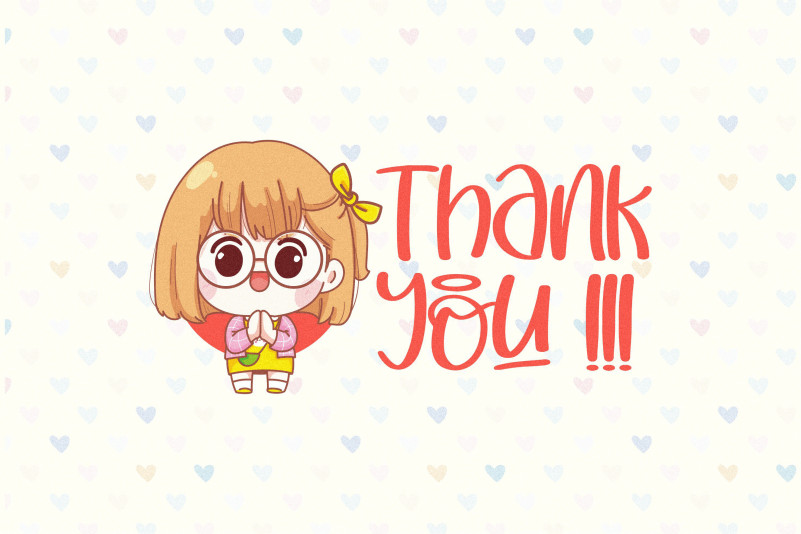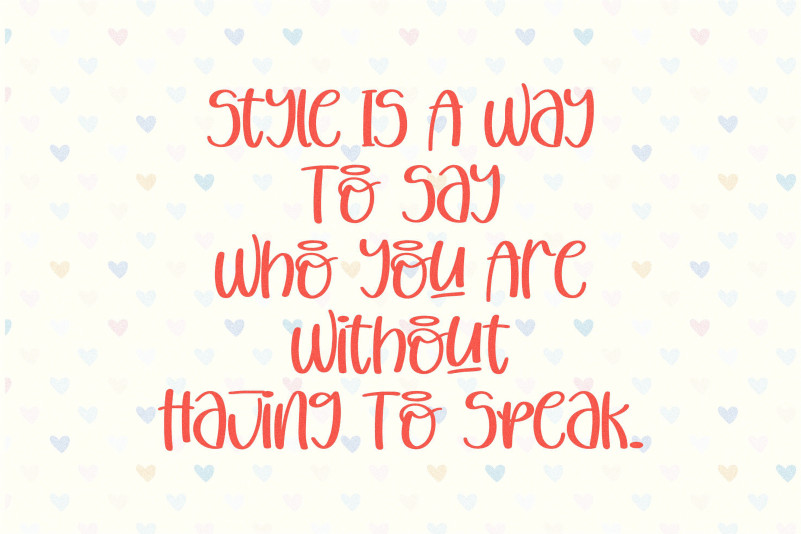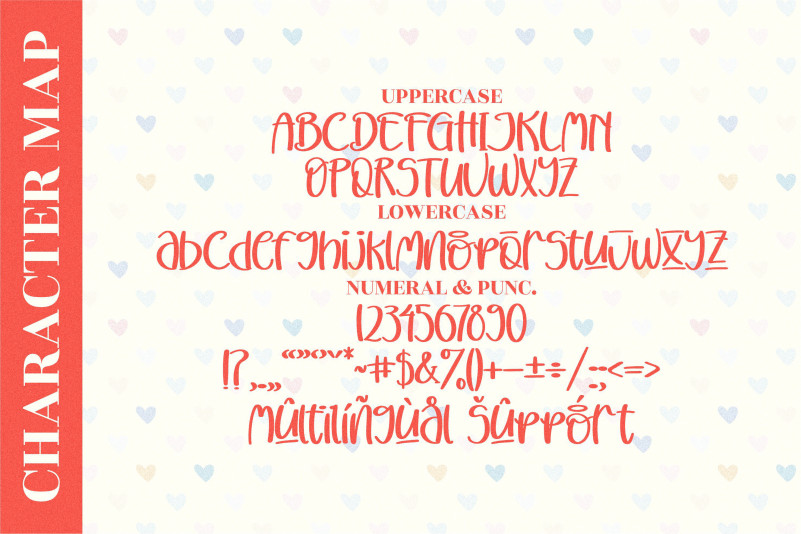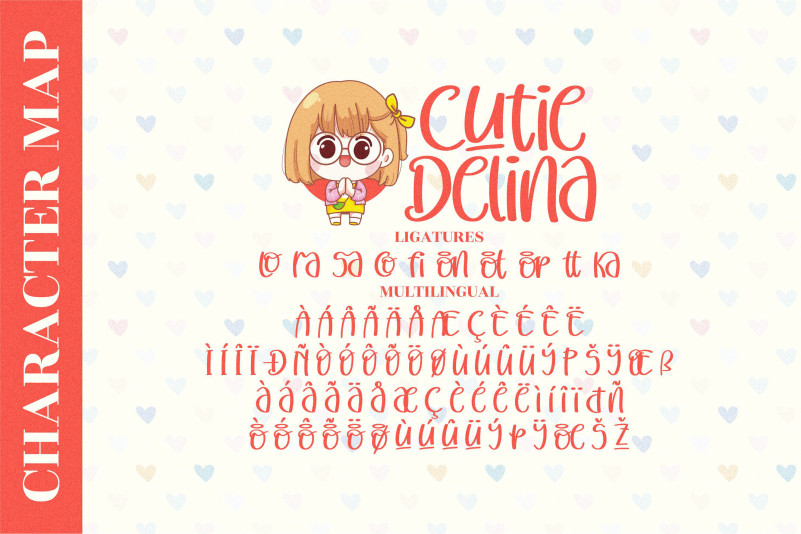
Cutie Delina Font
Cutie Delina Display Font
Cutie Delina Font is a quirky, fun and friendly display font. It can be used for various creations, such as baby showers, baptisms, children book titles and pretty much any design that requires a delicate and jolly touch.